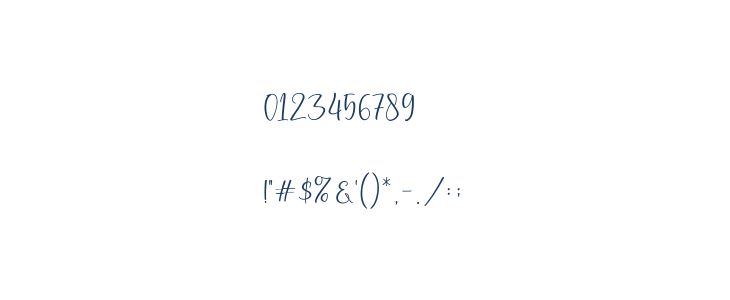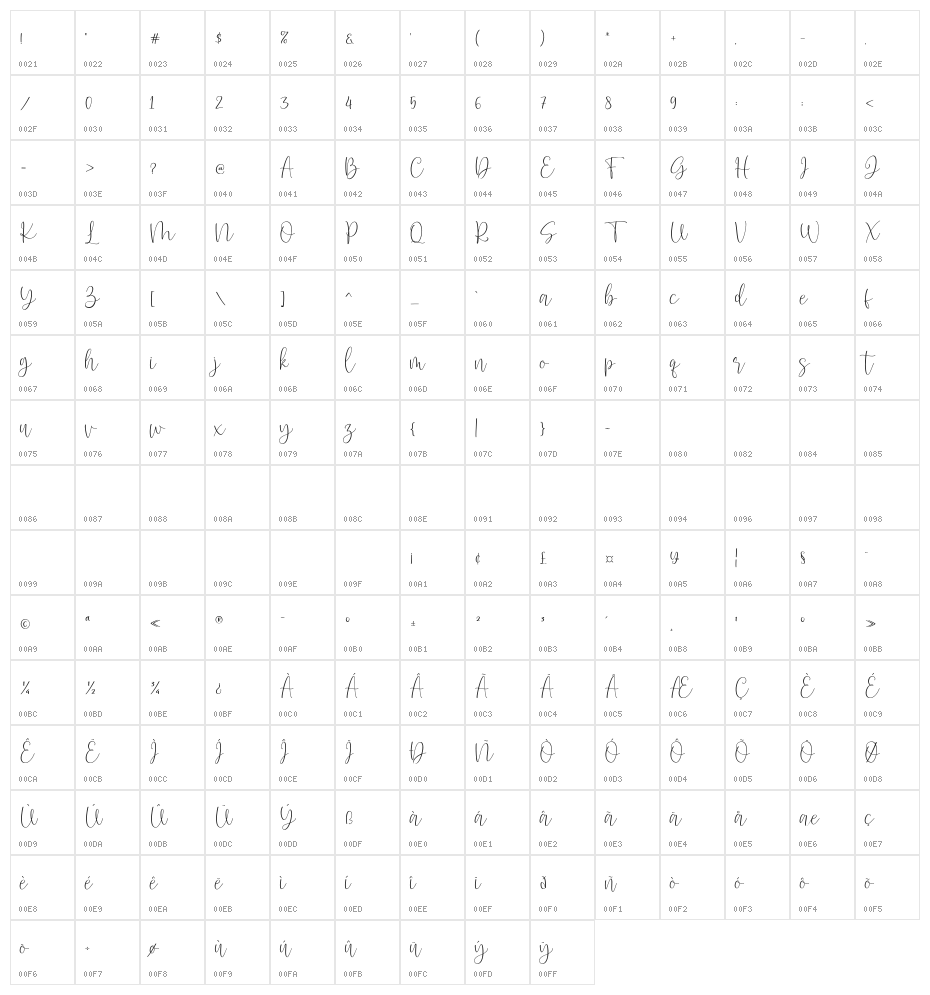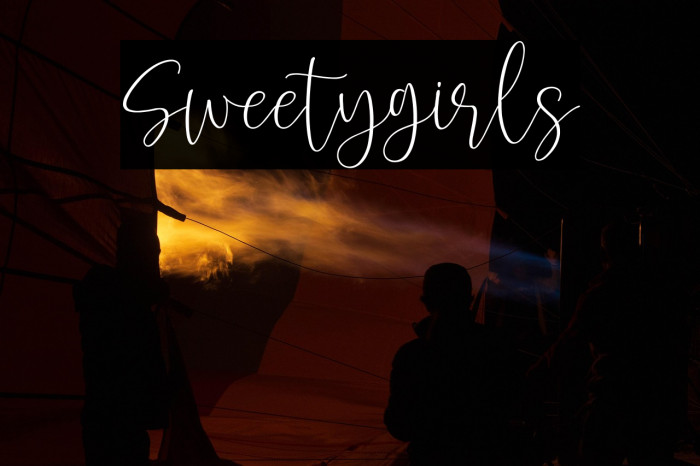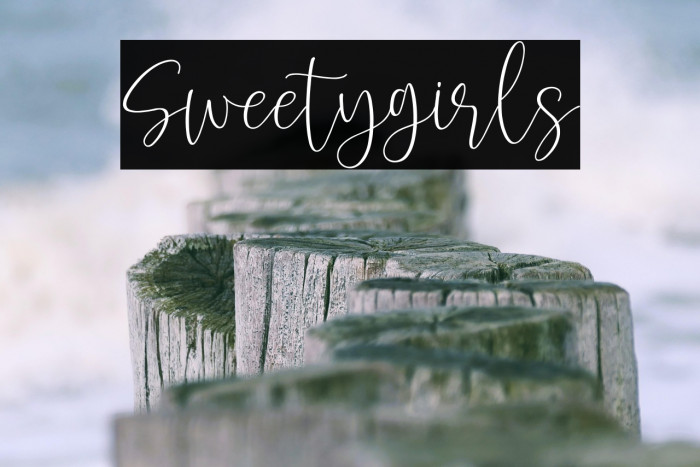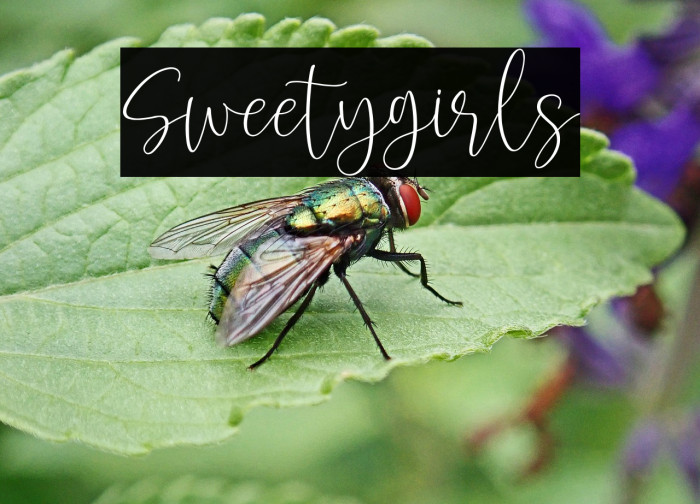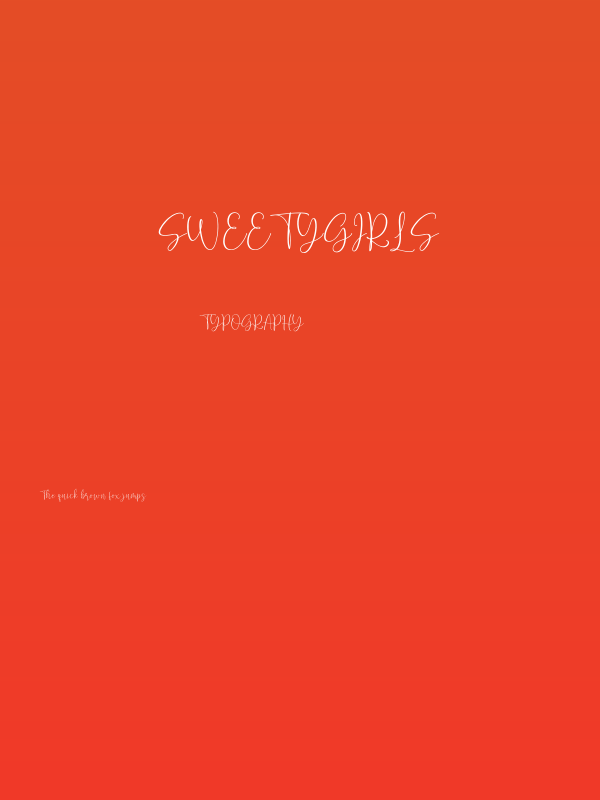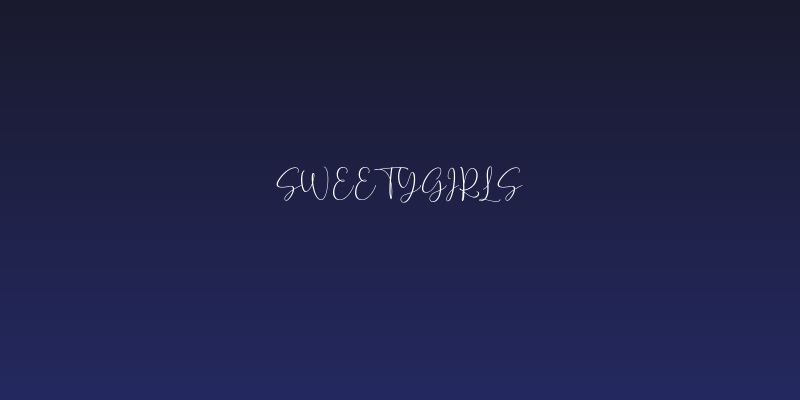
Sweetygirls Font
Sweetygirls Description
This font features a playful and elegant handwritten style, characterized by its flowing, cursive script. The letters are connected with smooth, sweeping strokes that give it a whimsical and romantic feel. The uppercase letters are tall and graceful, while the lowercase letters maintain a consistent flow, adding to the overall charm. The numbers and special characters are designed to match the script's fluidity, making it versatile for various uses. The font's delicate lines and curves create a sense of movement and grace, perfect for adding a personal touch to any project.